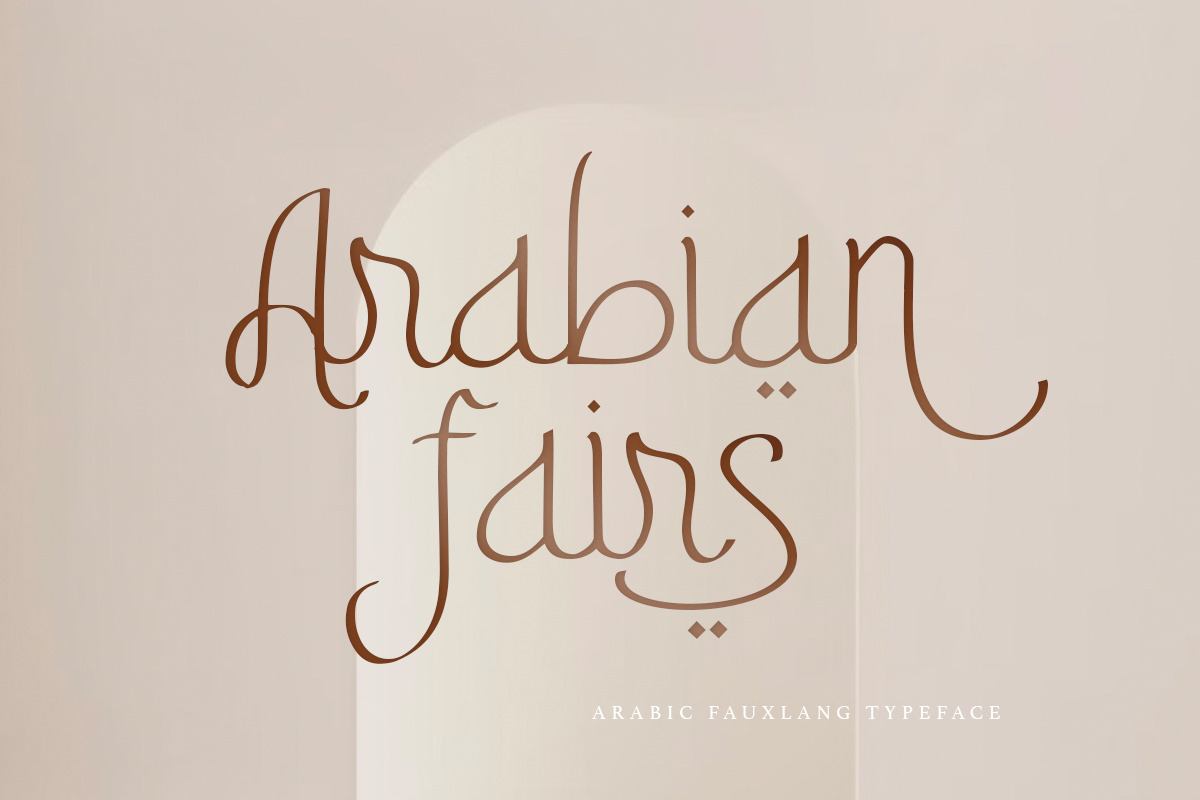
Arabian Fairs Fauxlang Arabic Font Free Download is a decorative display typeface inspired by the flowing beauty of Arabic script—designed in a faux-language style for visual flair rather than linguistic accuracy. With its exotic curves, ornamental rhythm, and cultural elegance, this font is ideal for themed posters, event branding, packaging, fantasy designs, and editorial artwork.
Perfect for use in projects that aim to evoke Middle Eastern aesthetics, Arabian Fairs brings mystery, storytelling, and richness to your typography without using real Arabic characters. It’s bold, stylish, and visually captivating—ideal for display use only.
Whether you're creating a fictional world, a luxurious brand, or an eye-catching headline, this typeface delivers a distinct and memorable look.